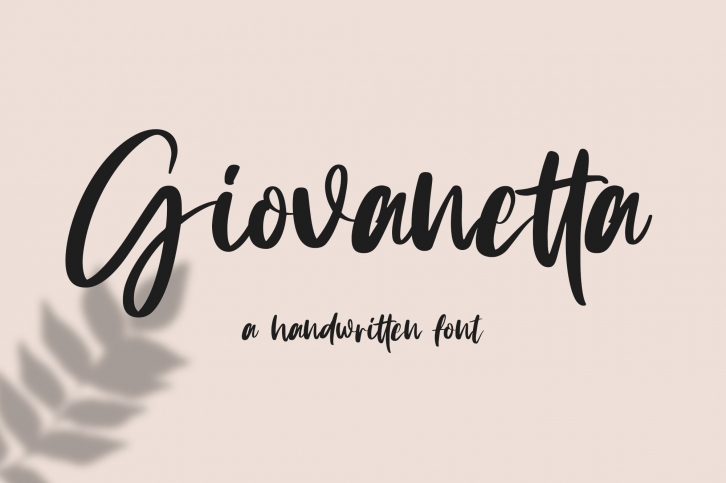
Giovanetta handwritten is a beautiful font that was designed by Vz Type. It's a great choice for designers and creatives who need such a font. It was released on May 1, 2020 and the file size is 10.64 MB. Giovanetta handwritten may give a more youthful, expressive and casual look to your project. It is a very beautiful, refined, elegant, and high-quality font.